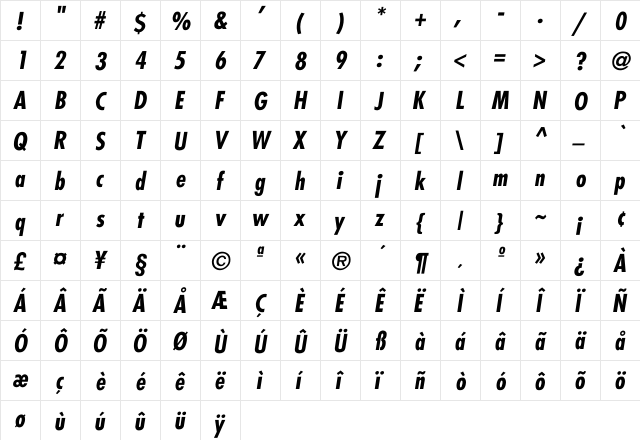
Futura-Condensed-BoldItalic Regular Font Preview
Design Context for Futura-Condensed-BoldItalic Typeface
Futura-Condensed-BoldItalic has a distinctly futuristic character, with geometric precision and clean angles that feel at home in technology, gaming, and sci-fi contexts. The dynamic lean of this cut emphasises speed and emphasis in any layout. Its bold stroke weight gives it real presence on the page. The condensed width makes it efficient for tight spaces without sacrificing legibility.
Pro Tip: Try Futura-Condensed-BoldItalic with generous letter-spacing in UI labels and navigation — the geometric forms benefit from room to breathe.